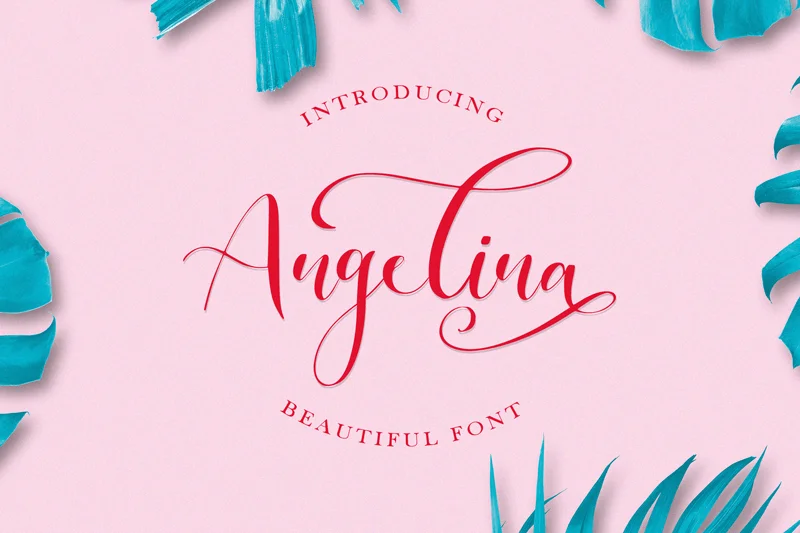
Angelina Font
Angelina Font is perfect for elegant wedding invitations, feminine brand logos, beauty salon marketing, romantic greeting cards, fashion boutique signage, luxury cosmetic packaging, sophisticated social media content, personal stationery designs, upscale photography branding, and graceful designs that celebrate femininity, romance, and timeless elegance.
This font is exciting because it captures delicate beauty and graceful sophistication through flowing script letterforms that feel genuinely handwritten with care and artistic precision. The elegant curves and refined connections between characters create an intimate, personal atmosphere that makes every message feel more heartfelt, romantic, and visually enchanting across all applications.
The Angelina Font family typically includes uppercase and lowercase characters, numerals, punctuation marks, ligatures, stylistic alternates, decorative swashes, and ornamental elements that allow designers to create beautifully personalized compositions with authentic calligraphic charm.
Whether you're crafting romantic wedding materials, designing feminine brand identities for creative businesses, or developing elegant marketing collateral for luxury brands, Angelina Font Free Download provides the perfect typographic expression of grace and sophistication. Its flowing character and delicate elegance make every project feel more polished and emotionally resonant, ensuring your designs beautifully convey romance, femininity, and timeless beauty that captures hearts and creates lasting impressions with audiences seeking authentic elegance and refined style.